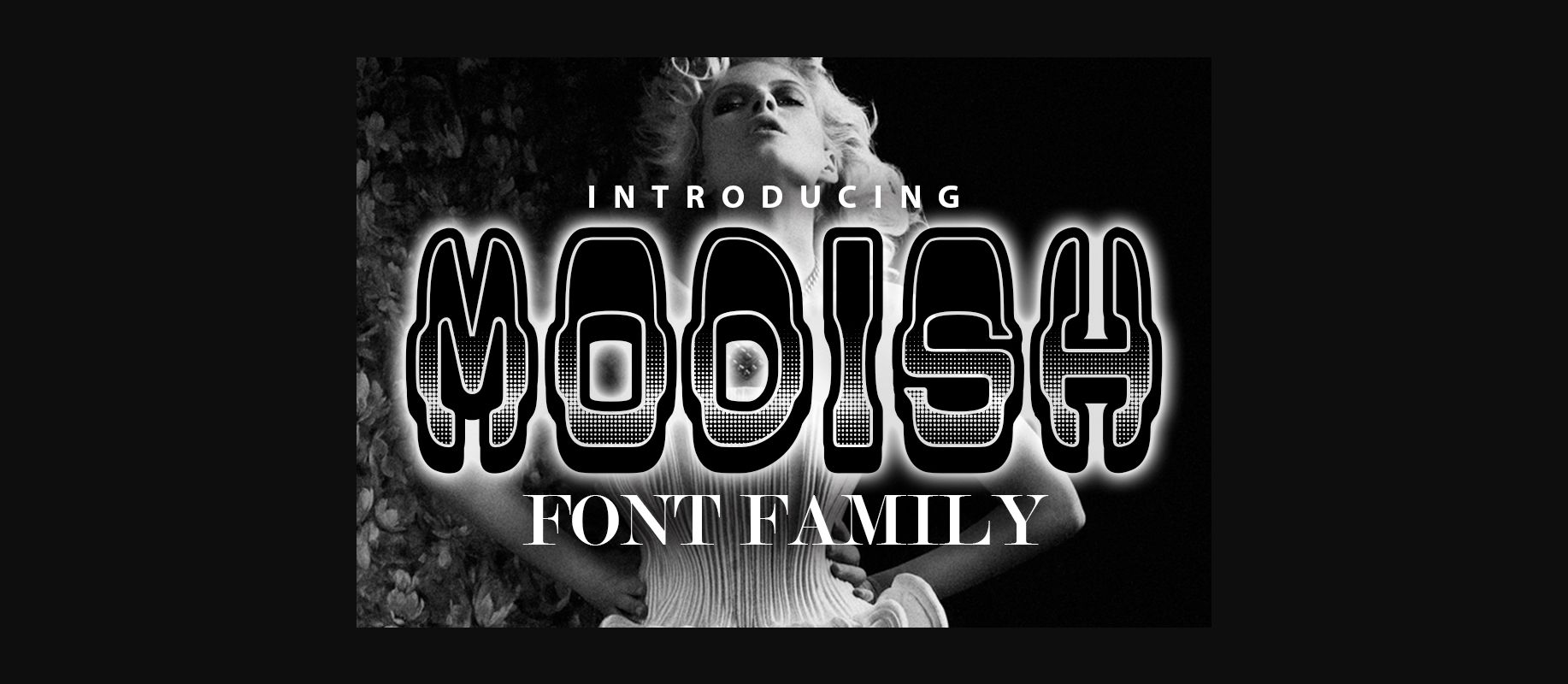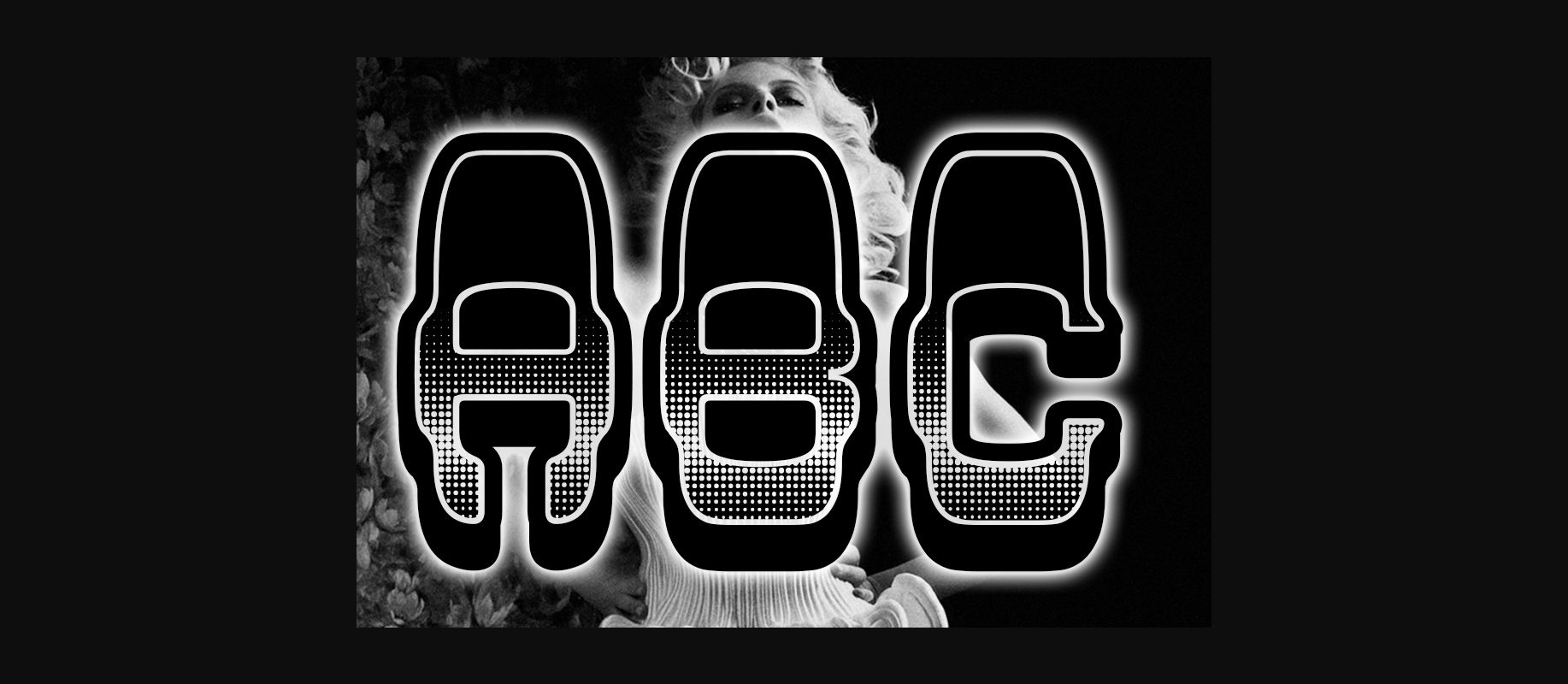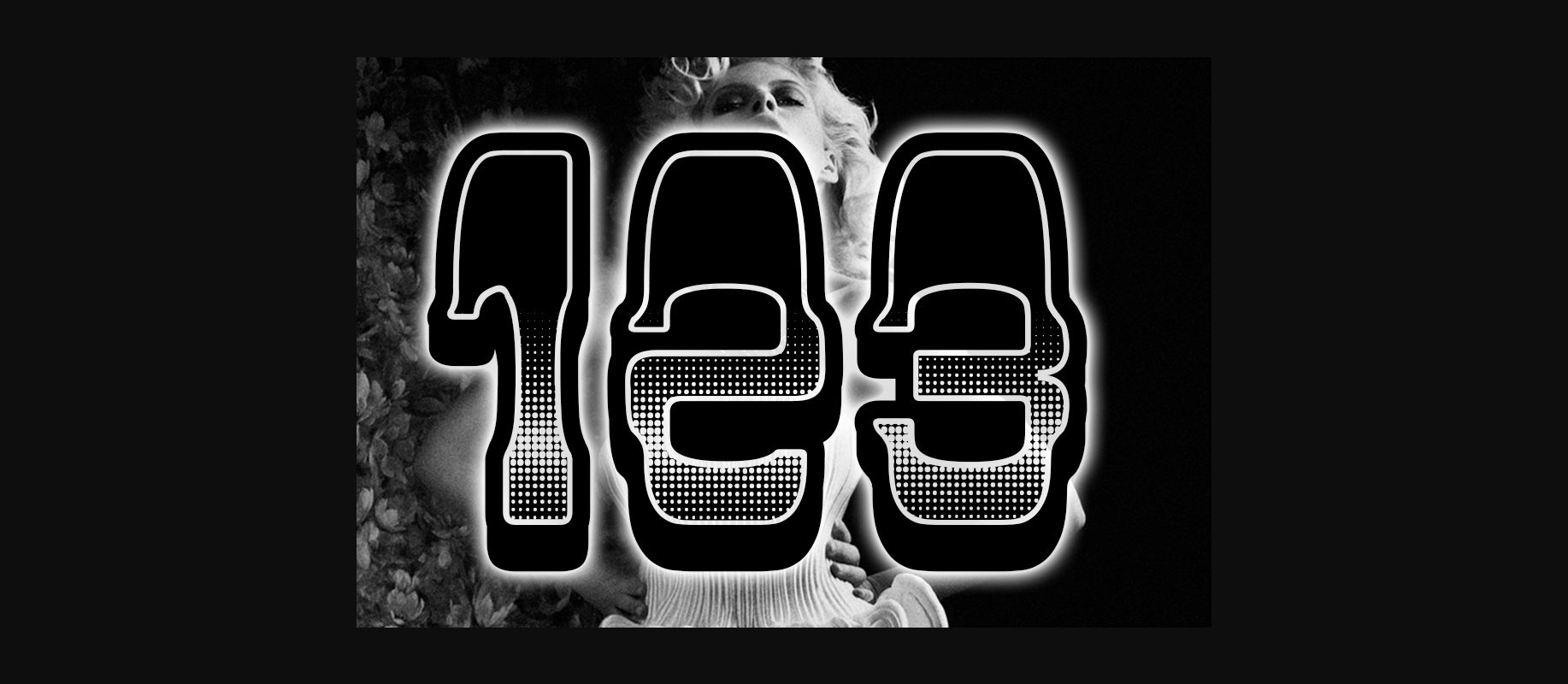
About Modish Font
The Modish is an extravagant retro typeface. It comes in a regular, filled and gradient version. It’s great for posters, headlines and various prints.